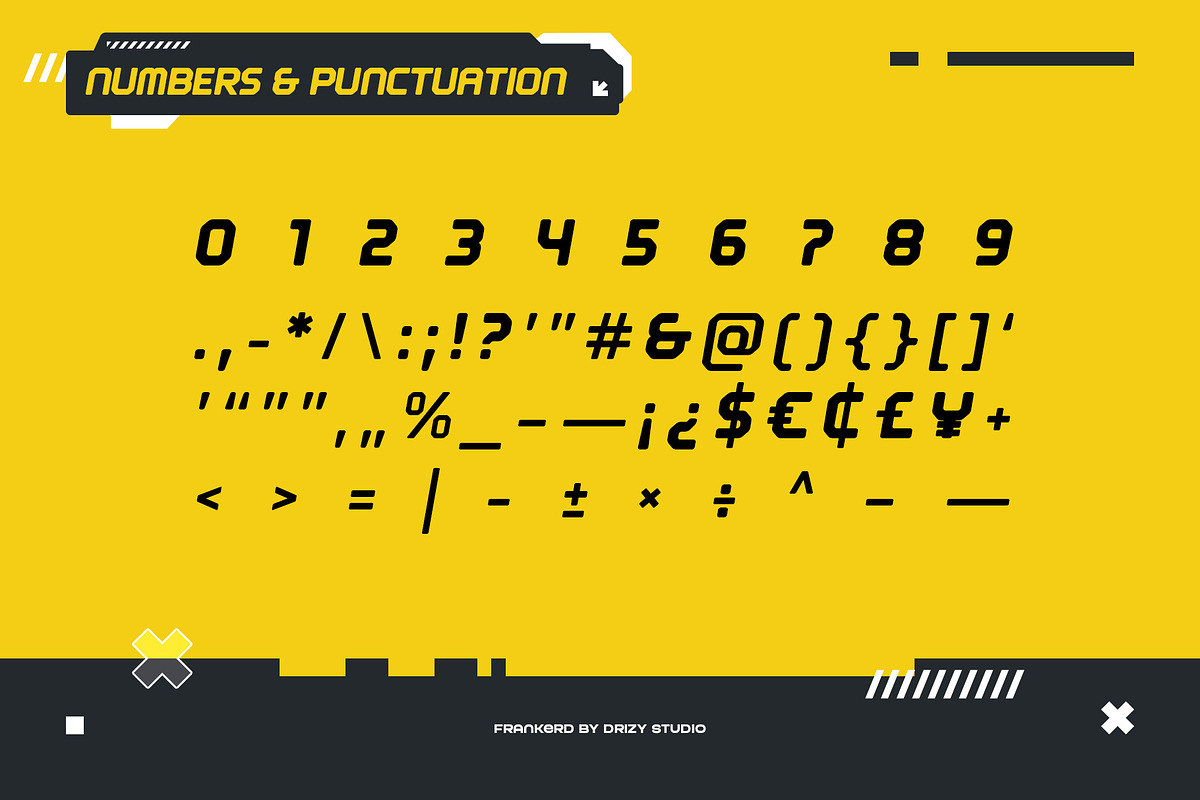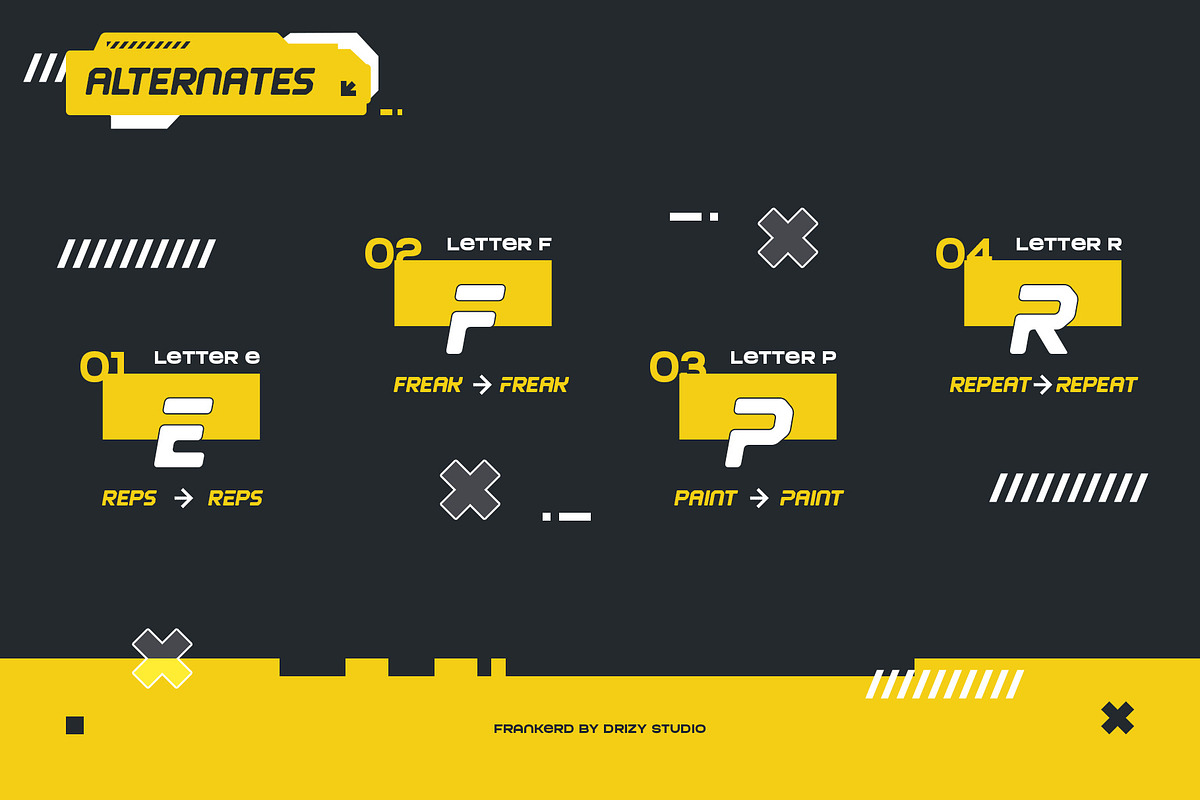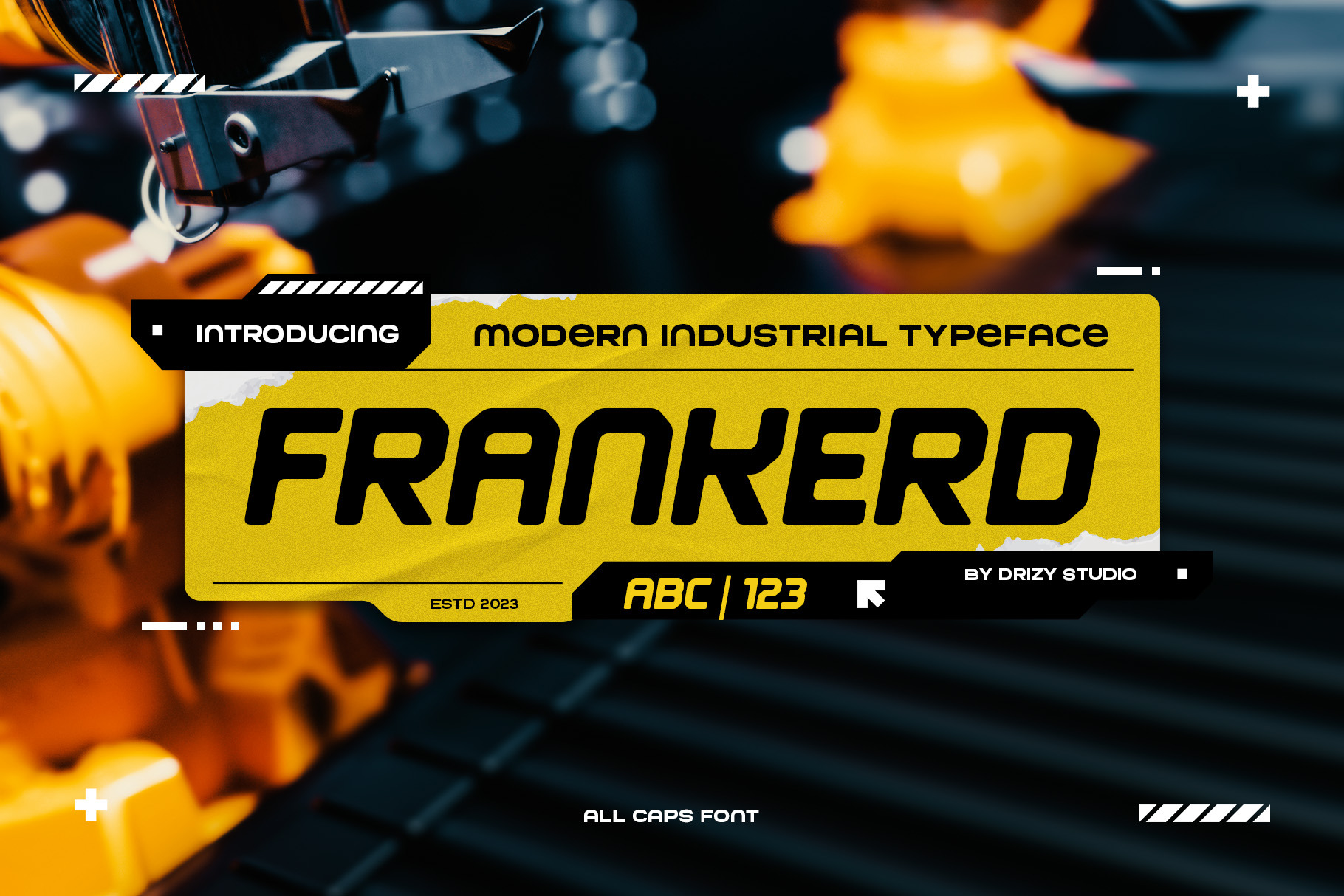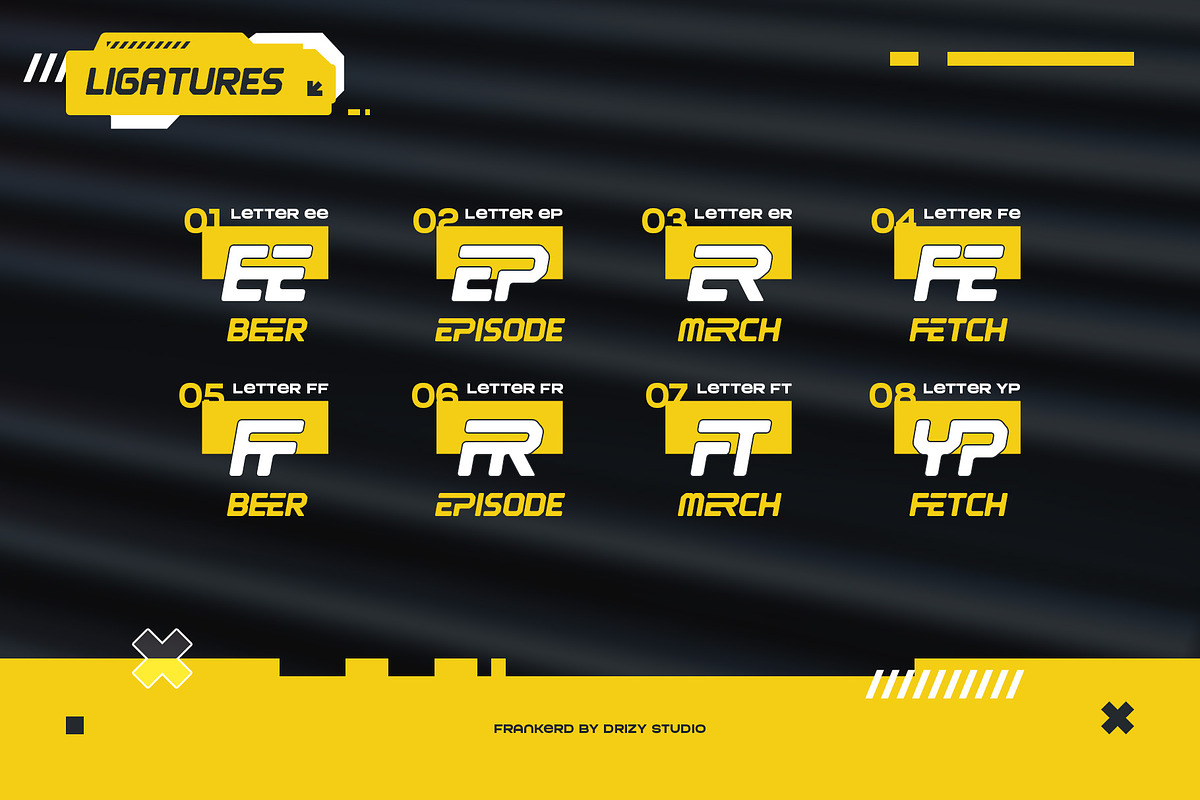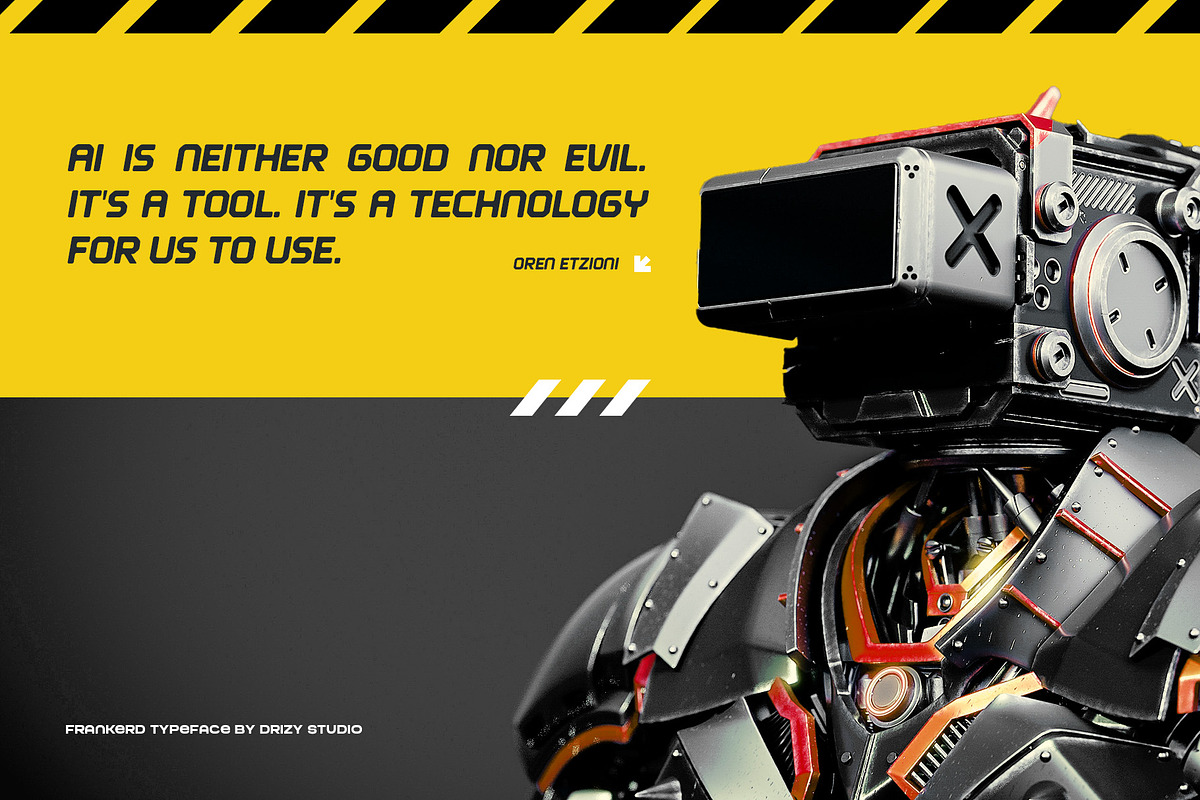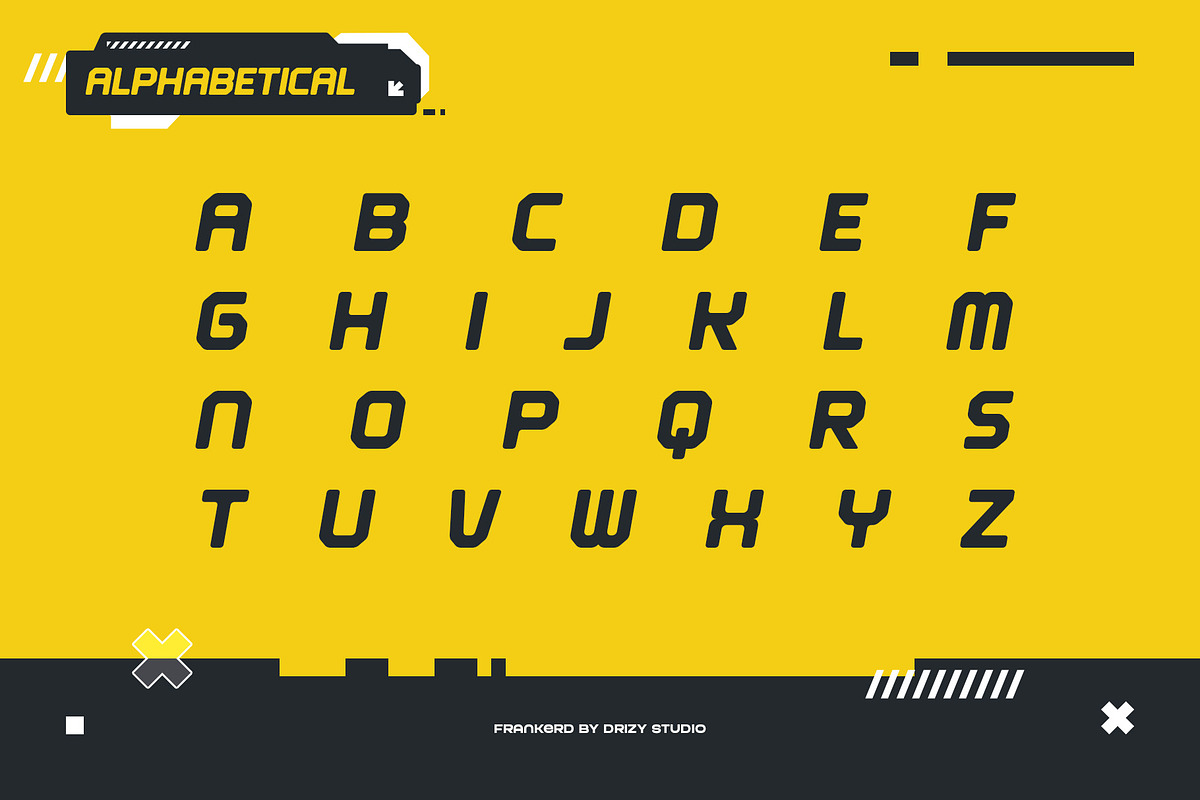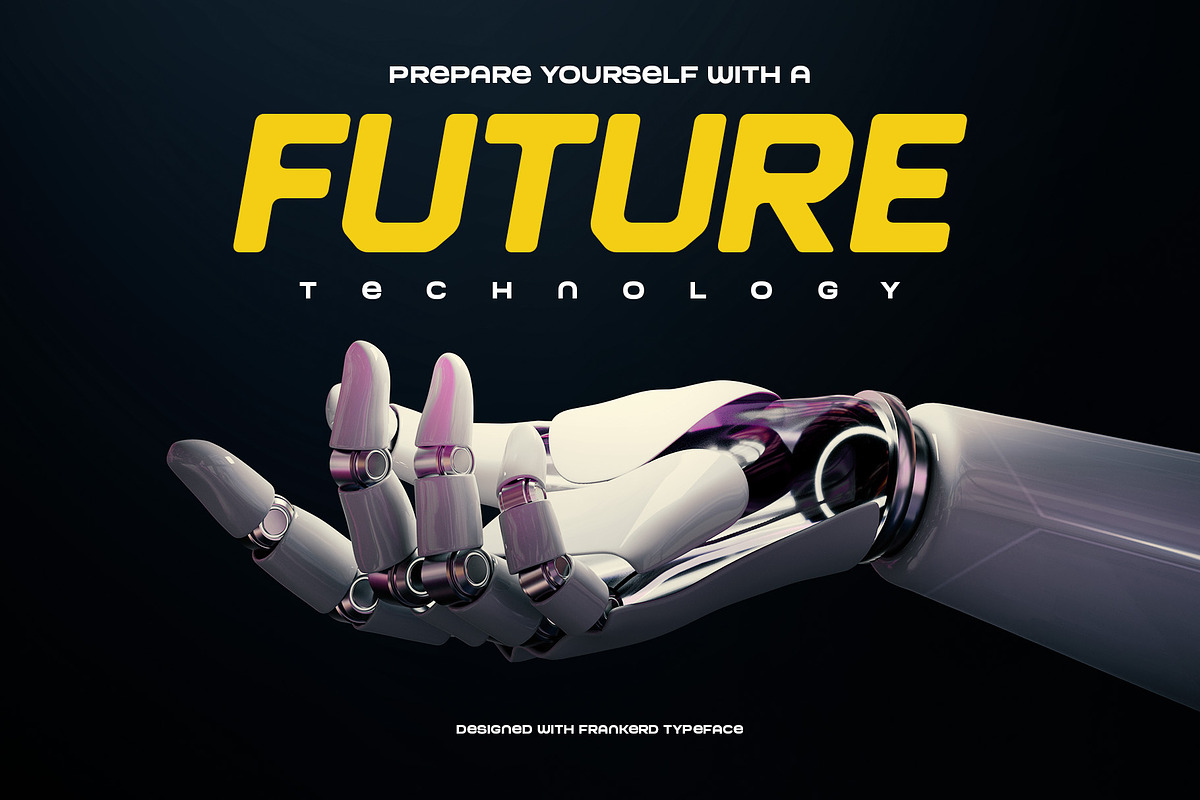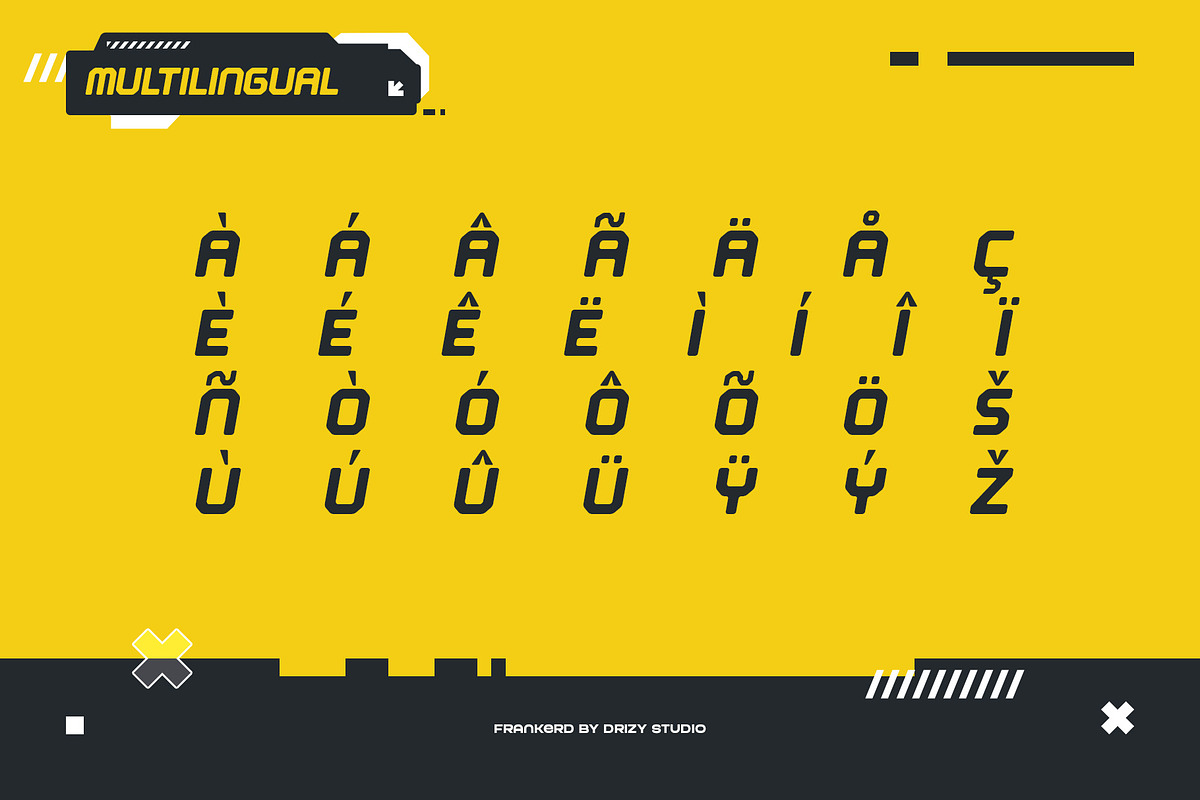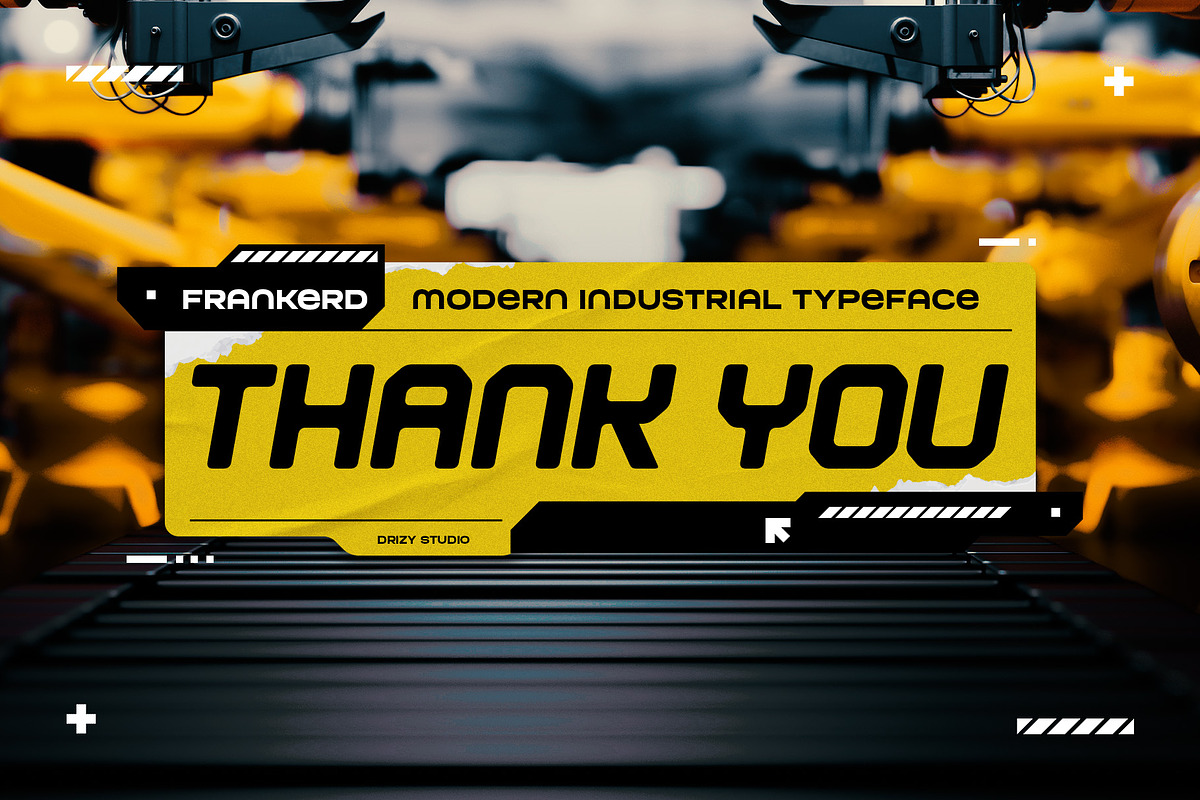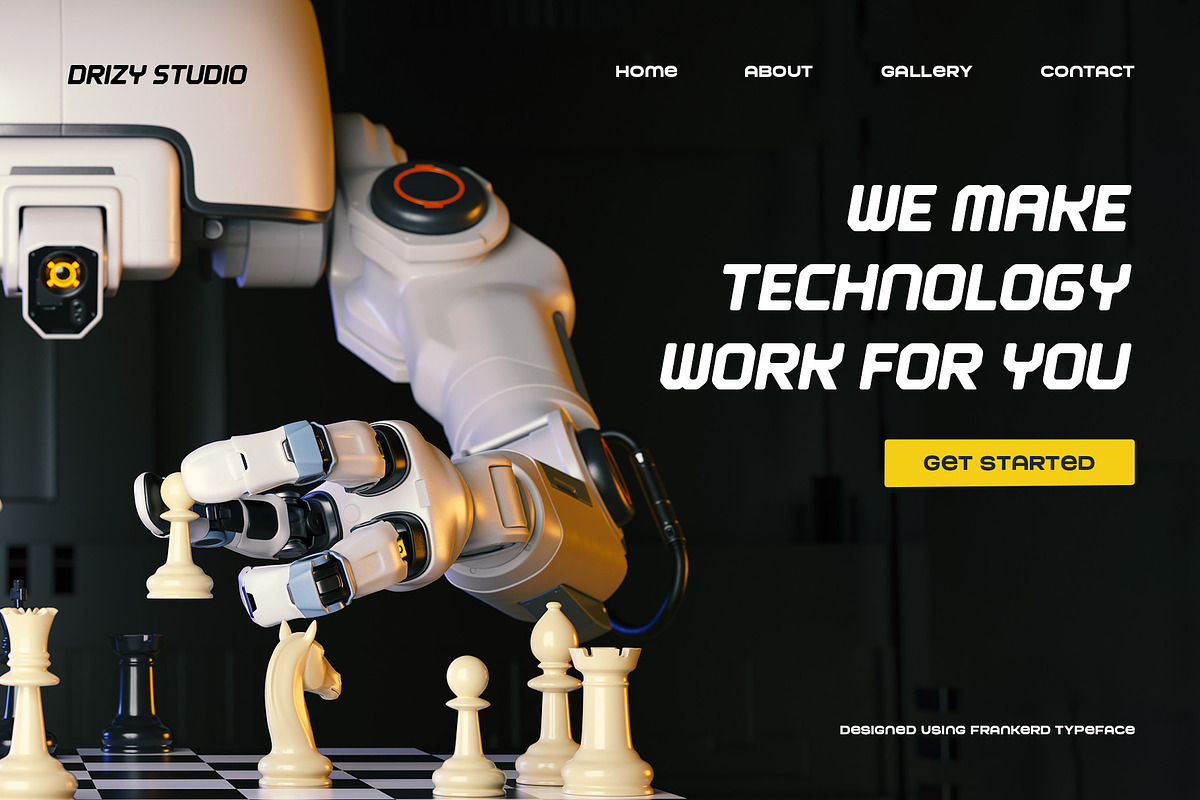
Frankerd - Modern Industrial Font
Frankerd is a striking and contemporary industrial font that seamlessly blends modern aesthetics with a robust, mechanical edge. This typeface is designed to capture the essence of industrial design, making it an ideal choice for a wide range of applications, from branding and advertising to product packaging and signage.
Frankerd features: Character Set Punctuation & Numbers Multilingual Support Alternates Ligatures
Elevate and explore the design possibilities with this industrial font!